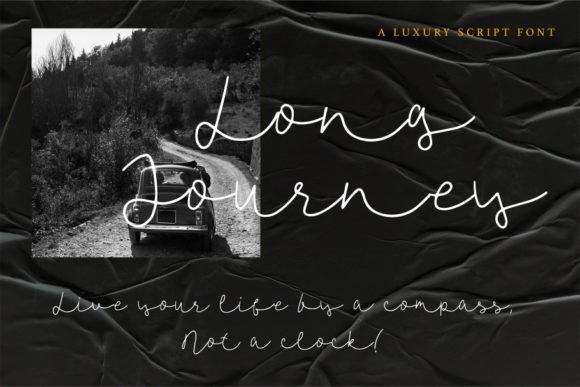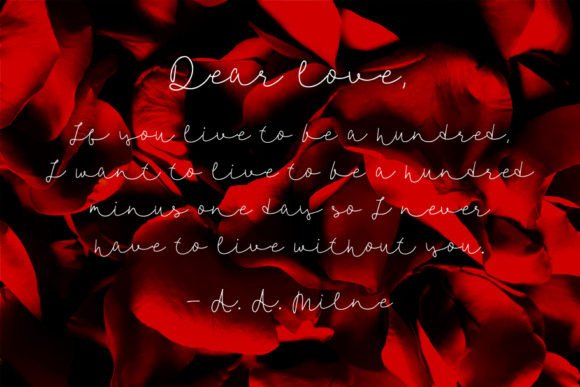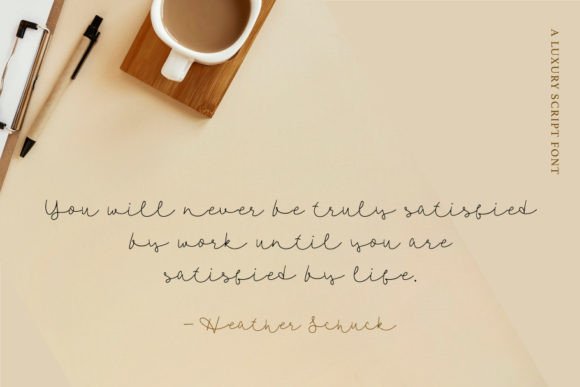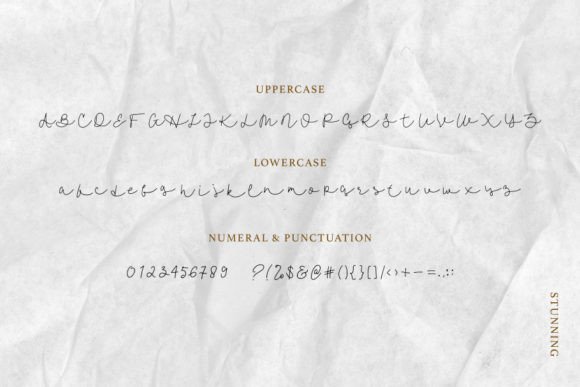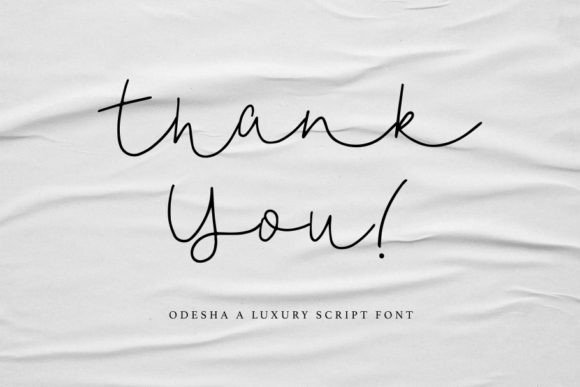
Odesha Font
About Odesha Font
“Odesha” is an enchanting handwritten font that brings a touch of romance to your projects. With its versatile script style, this font is suitable for a wide spectrum of applications, ranging from greeting cards to headlines. By incorporating “Odesha” into your designs, you can confidently infuse them with an enchanting and romantic feel.
The handwritten nature of “Odesha” adds a personal and authentic touch to your projects. Whether you’re designing greeting cards, posters, or headlines, this font’s enchanting script style contributes to a warm and inviting atmosphere.
The versatility of “Odesha” makes it a reliable choice for various creative applications. Its romantic feel enhances the emotional impact of your messages, making it suitable for projects that aim to evoke a sense of love, elegance, or charm.
Adding “Odesha” to your design toolkit opens up possibilities for creating visually appealing compositions that capture the essence of romance. Whether used for print or digital media, this font adapts gracefully, ensuring a consistent and beautiful look across different platforms.
In summary, “Odesha” is a font that goes beyond just letters; it’s a design tool that brings enchantment and romance to your projects. Confidently use it in greeting cards, headlines, or any project where a touch of romance is desired, and notice how it elevates the emotional impact of your designs.